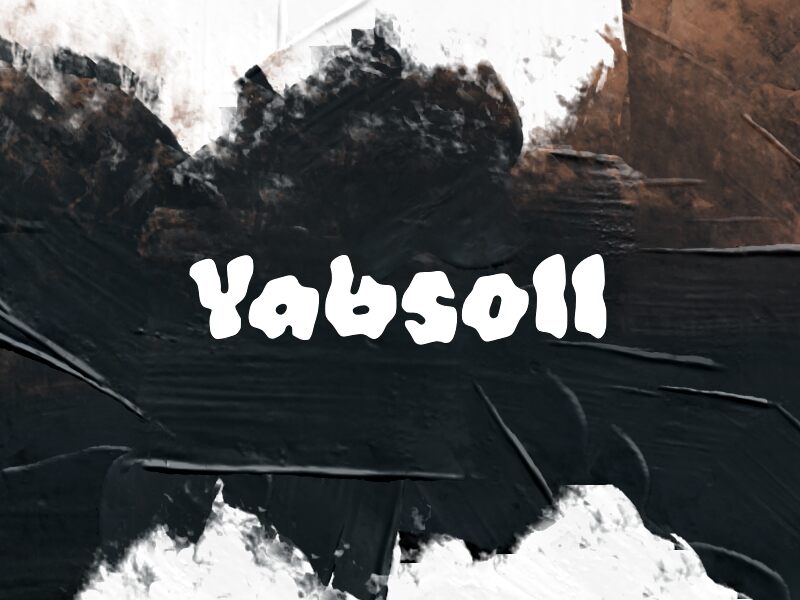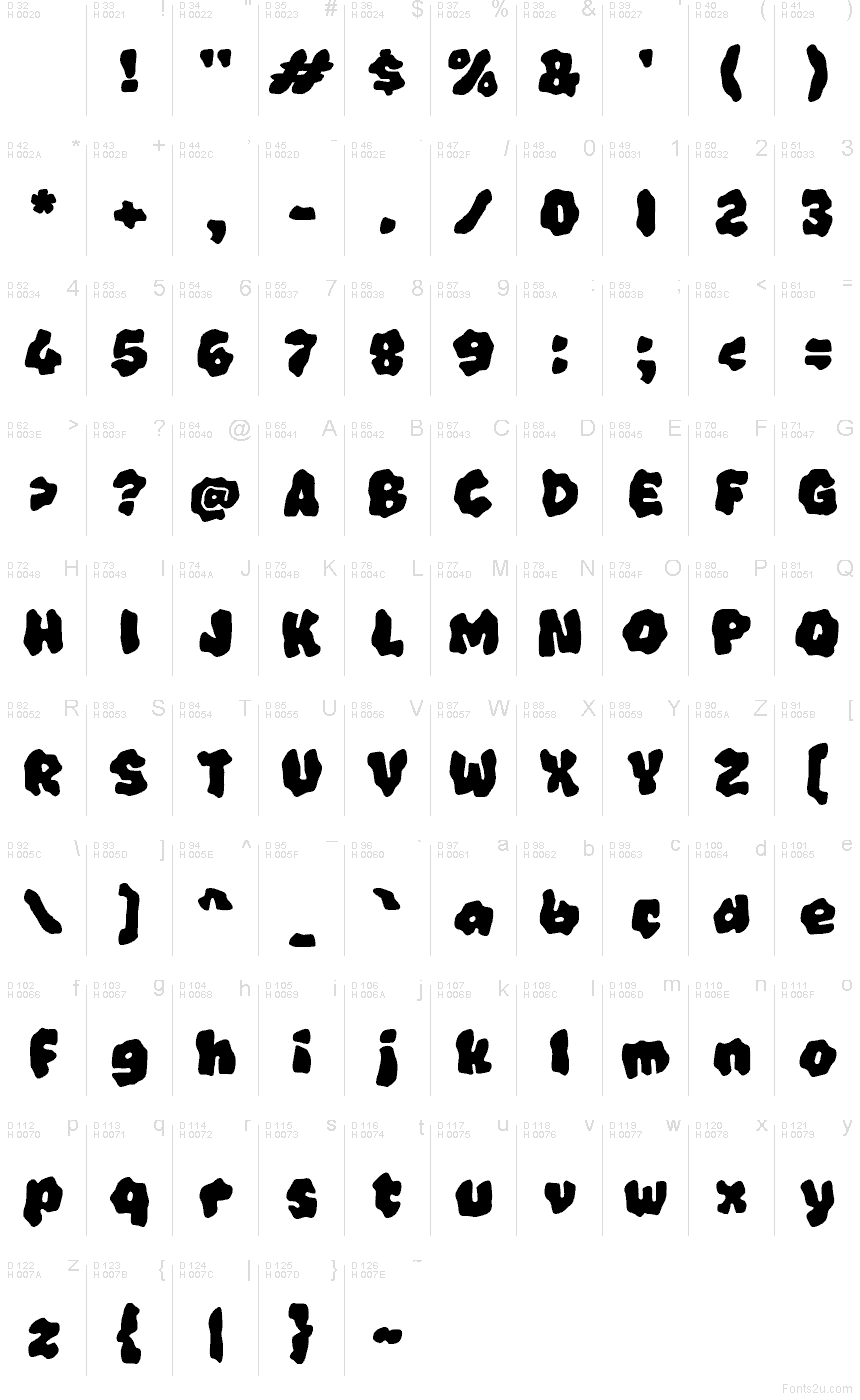
Yabsoll font by wepfont.com is a free distorted display typeface that looks like letters poured from a thick, inky liquid and left to wobble in place. Each shape feels swollen and irregular, with soft, blobby contours that almost seem to drip, giving your titles a raw, oozy energy. Despite the chaos, the rhythm between letters stays surprisingly consistent, so words remain readable while still feeling wild and unpolished.
Using Yabsoll, you can push posters, album covers, horror graphics, Halloween invites, zines, streetwear branding, and experimental web headers into gloriously weird territory. This free font really shines at large sizes where every bulge and ripple can be seen; pair it with a clean, narrow sans serif for body text to keep the overall layout grounded and legible.
Yabsoll